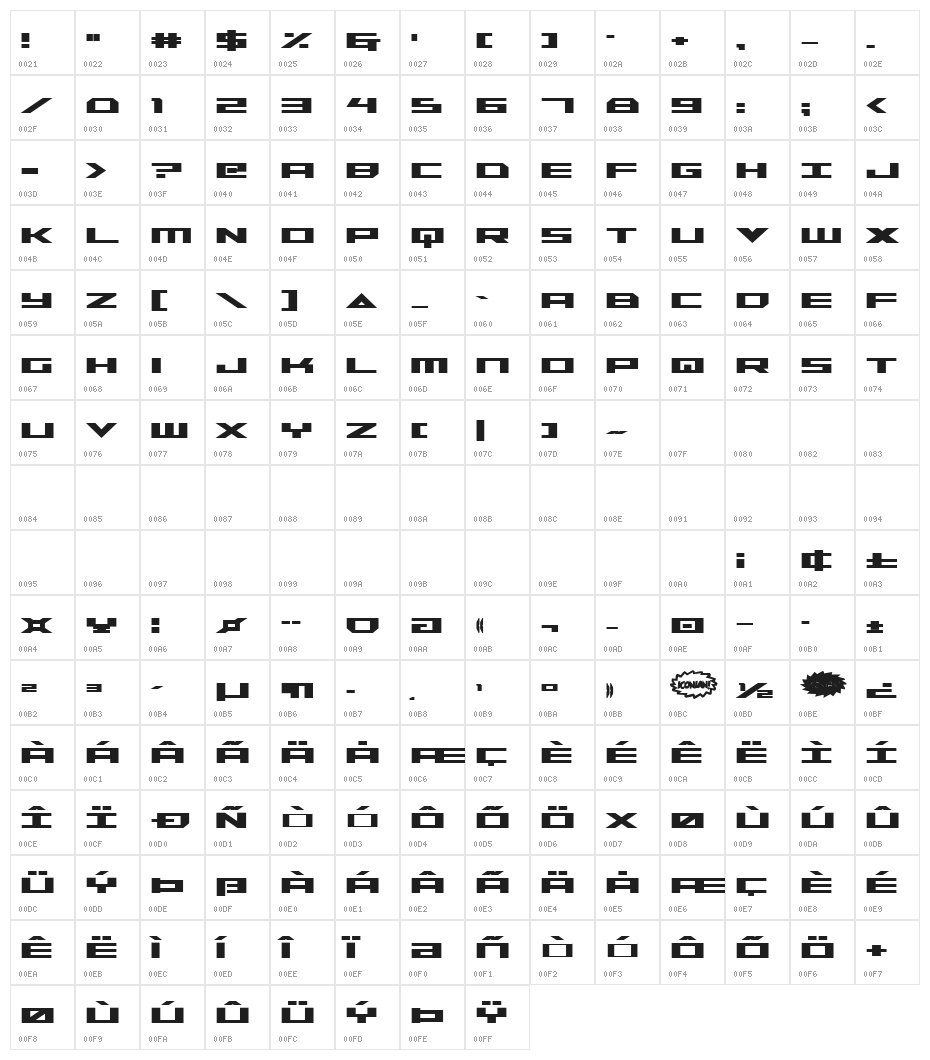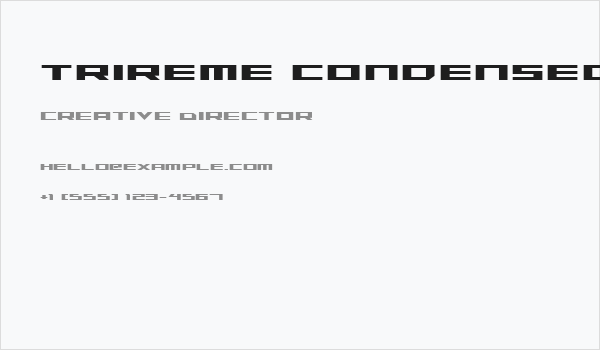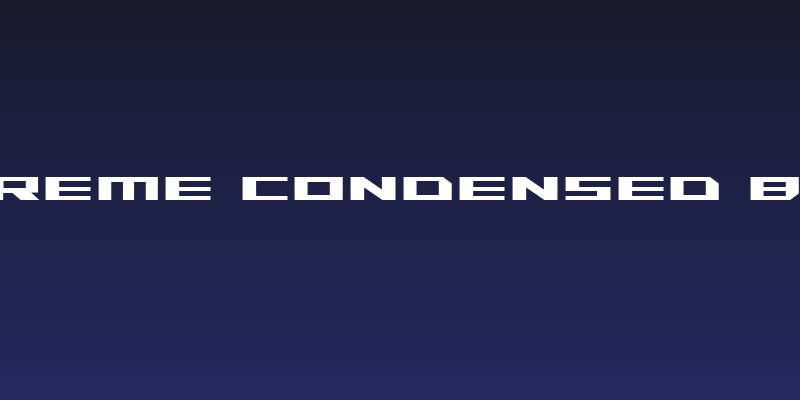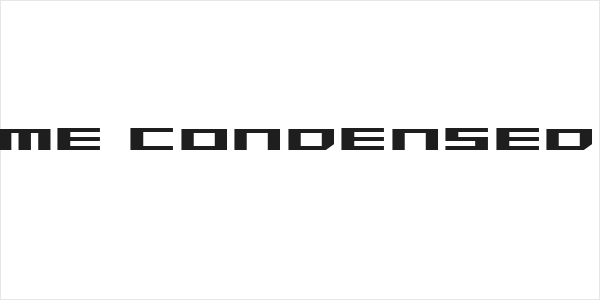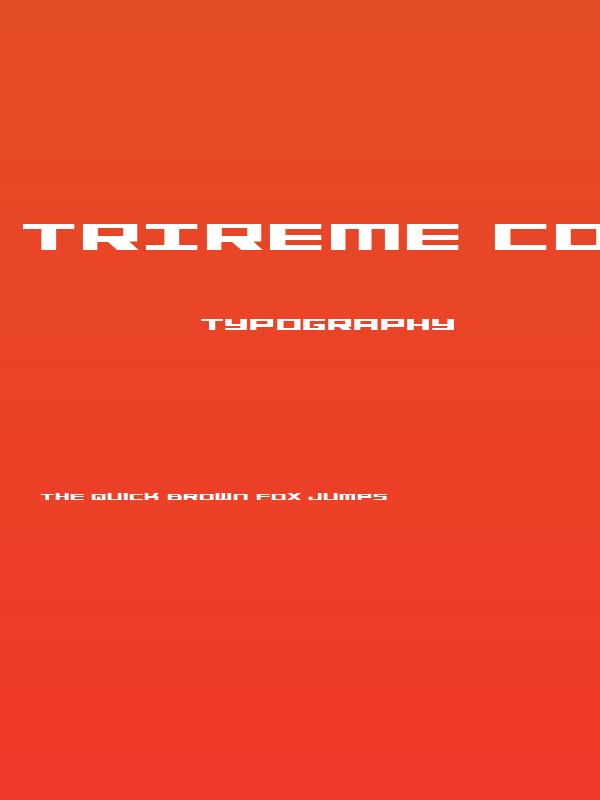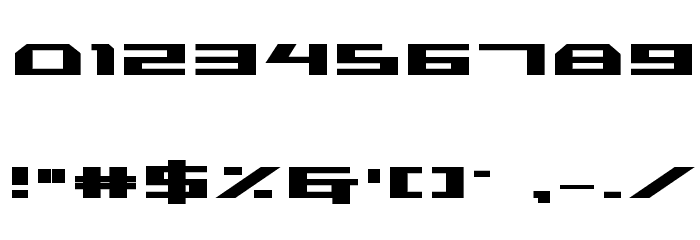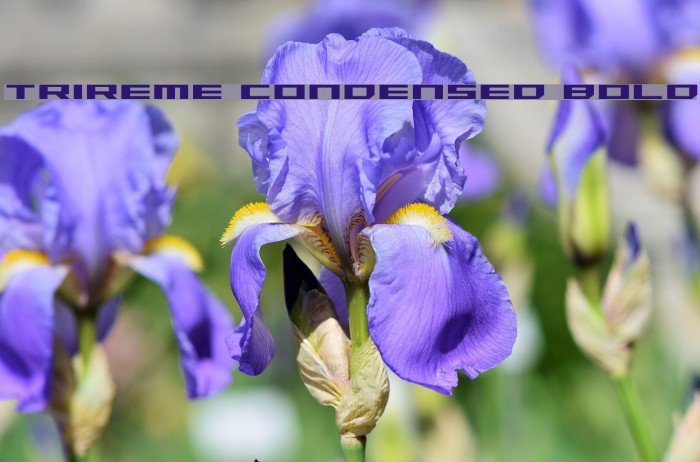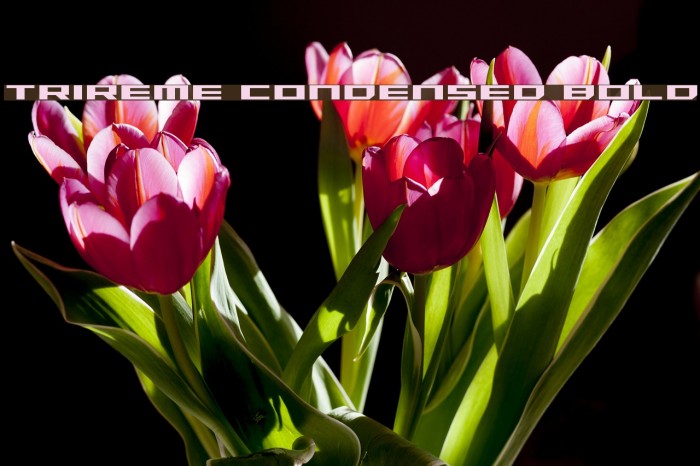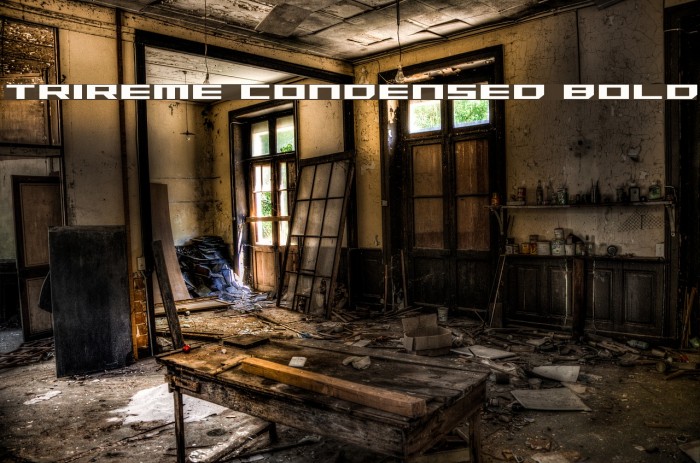
Trireme Condensed Bold Font
Trireme Condensed Bold Description
This font features a bold and condensed style with a modern, geometric appearance. The characters are constructed with sharp angles and straight lines, giving it a futuristic and industrial feel. The uppercase letters are uniform in height, while the lowercase letters maintain a consistent style, enhancing readability. The numerals and special characters follow the same design principles, ensuring a cohesive look across all glyphs. The font's strong presence makes it suitable for impactful headlines and attention-grabbing designs.
| Proposed Projects | Ideal for futuristic designs, tech branding, posters, and video game graphics. |